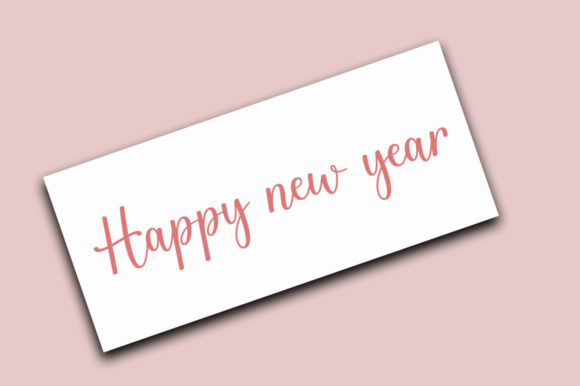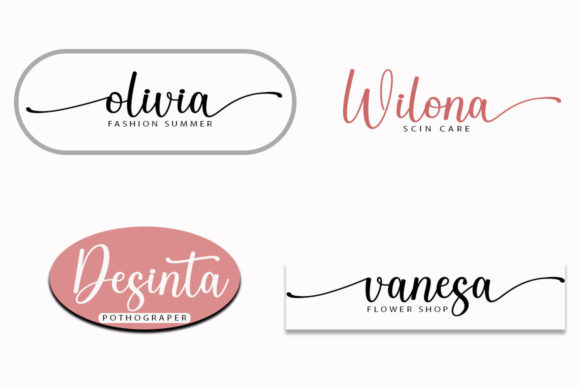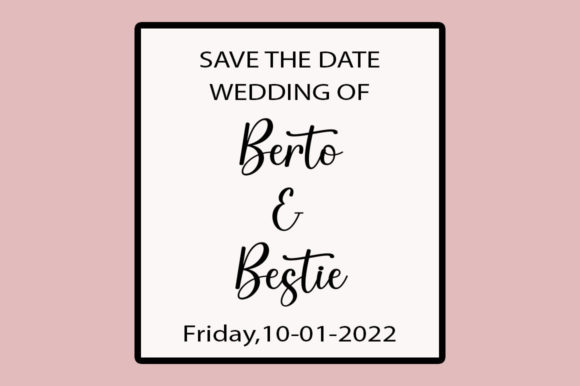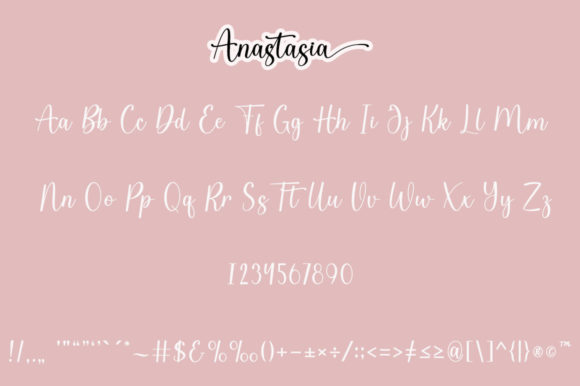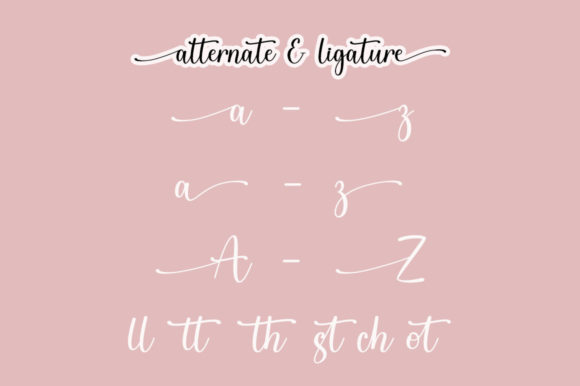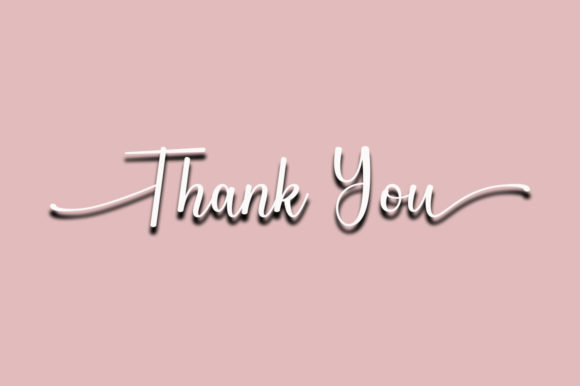
Introducing Anastasia Font: Elevate Your Designs with Elegance and Charm
Are you a designer or crafter looking for a font that exudes elegance and charm? Look no further than Anastasia Font. This beautiful handwritten font is perfect for adding a touch of sophistication to any design project. In this article, we’ll explore the features and benefits of Anastasia Font, and how it can elevate your designs to the next level.
The Beauty of Anastasia Font
Anastasia Font is a stunning script font that feels equally charming and elegant. Its flowing lines and delicate curves make it perfect for designs that require a handwritten touch. Whether you’re creating wedding invitations, thank you cards, quotes, greeting cards, logos, or business cards, Anastasia Font is sure to impress.
One of the standout features of Anastasia Font is its PUA (Private Use Area) encoding. This means that you can access all of the glyphs and swashes with ease, giving you complete creative control over your designs. With PUA encoding, you can effortlessly insert special characters, ligatures, and ornaments to add an extra layer of elegance to your projects.
Anastasia Font is a versatile font that’s perfect for designers and crafters alike. Its elegant and charming design makes it ideal for a wide range of projects, including:
- Quotes and typography art
Why Choose Anastasia Font?
So why choose Anastasia Font over other script fonts? Here are just a few reasons:
- Elegant and charming design: Anastasia Font has a unique and sophisticated design that’s sure to elevate your projects.
- PUA encoding: With PUA encoding, you can access all of the glyphs and swashes with ease, giving you complete creative control.
- Versatile: Anastasia Font is perfect for a wide range of projects, from wedding invitations to logos and branding materials.
Tips for Using Anastasia Font
Here are a few tips for getting the most out of Anastasia Font:
- Use it sparingly: Anastasia Font is a statement font, so use it sparingly to add emphasis and elegance to your designs.
- Experiment with swashes: With PUA encoding, you can easily access a range of swashes and glyphs to add extra flair to your designs.
- Pair it with other fonts: Anastasia Font pairs beautifully with other fonts, so don’t be afraid to experiment with different combinations.
Anastasia Font is a beautiful and elegant script font that’s perfect for designers and crafters looking to add a touch of sophistication to their projects. With its PUA encoding and versatile design, it’s easy to see why Anastasia Font is a popular choice for a wide range of design projects. Whether you’re creating wedding invitations, logos, or greeting cards, Anastasia Font is sure to impress.